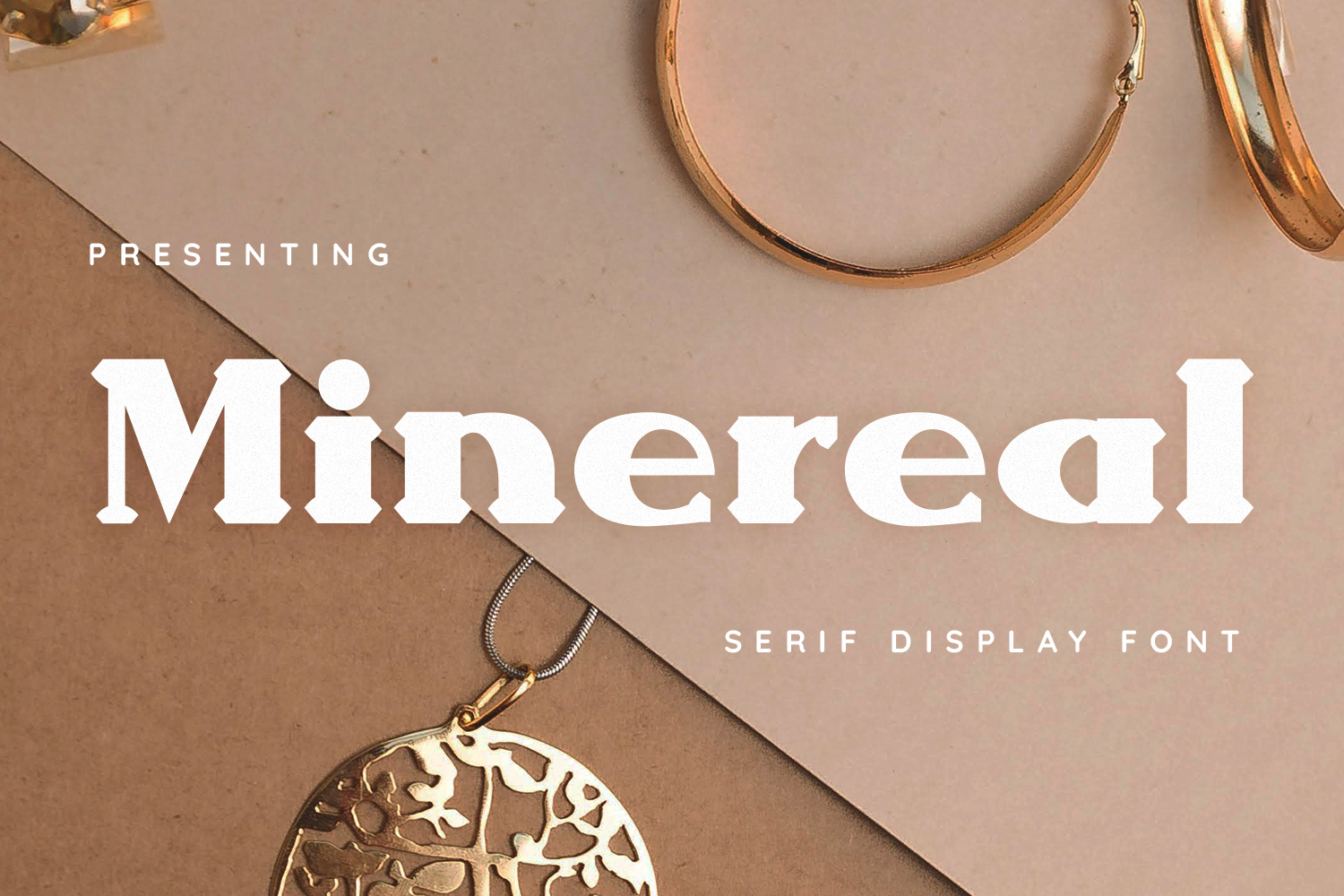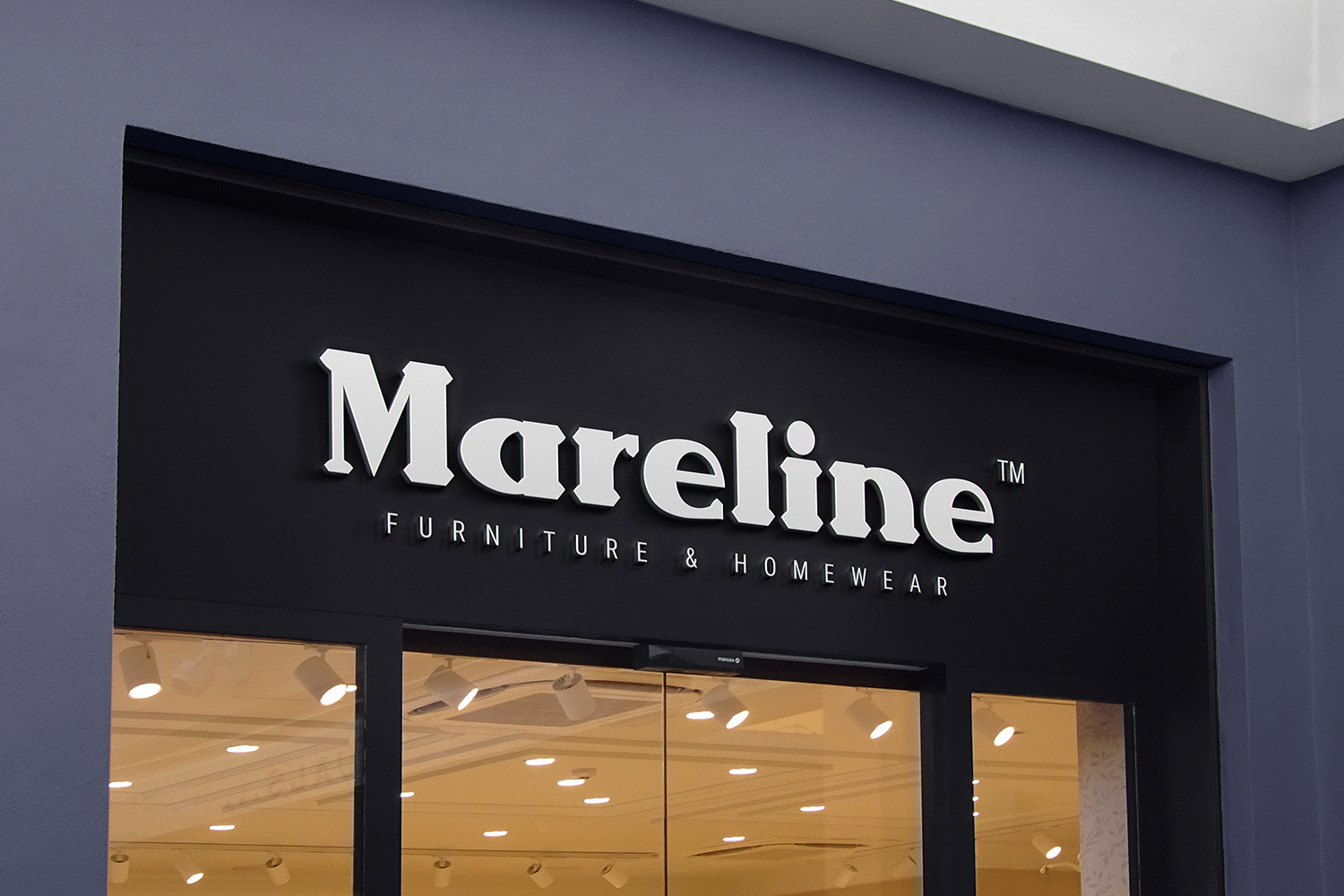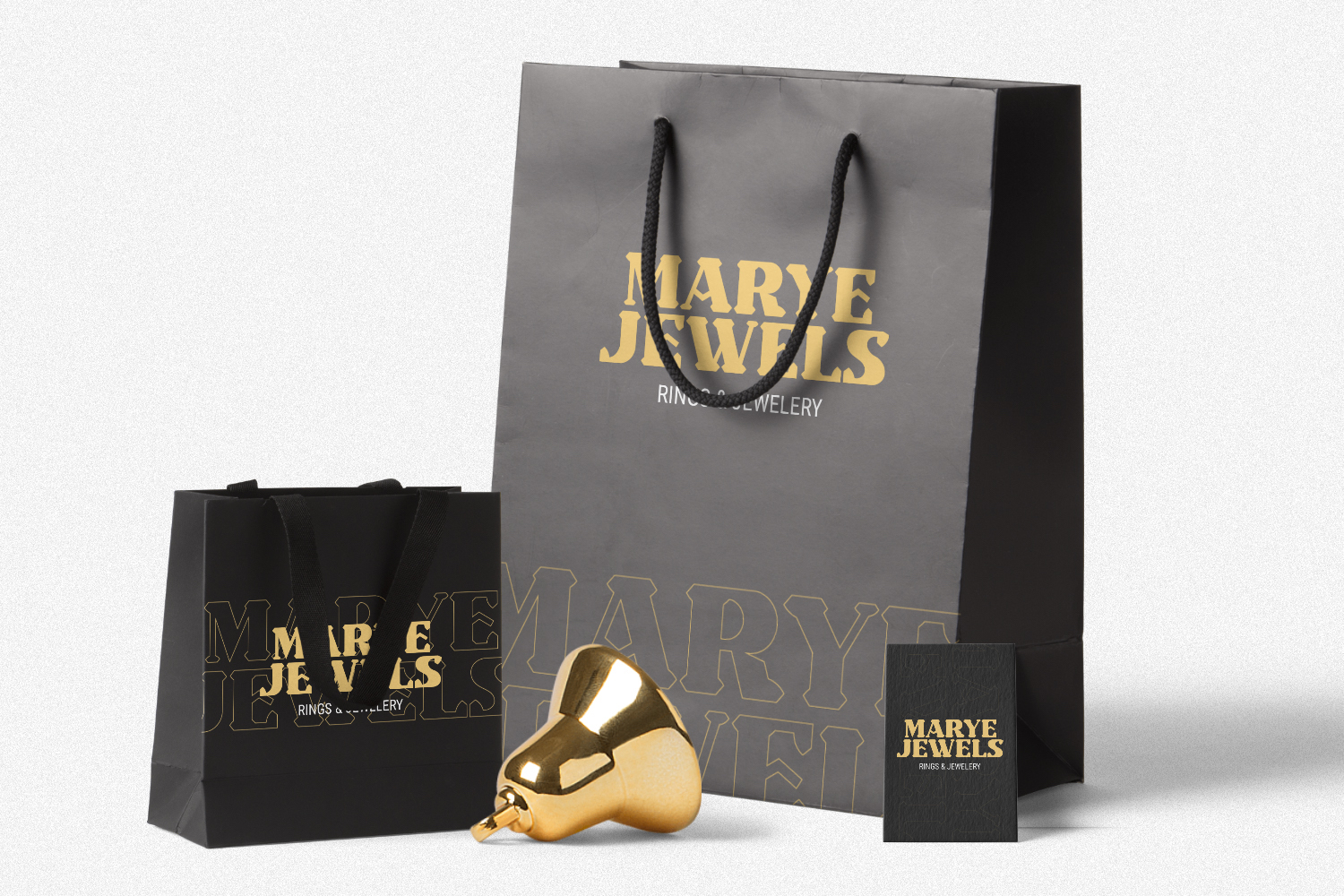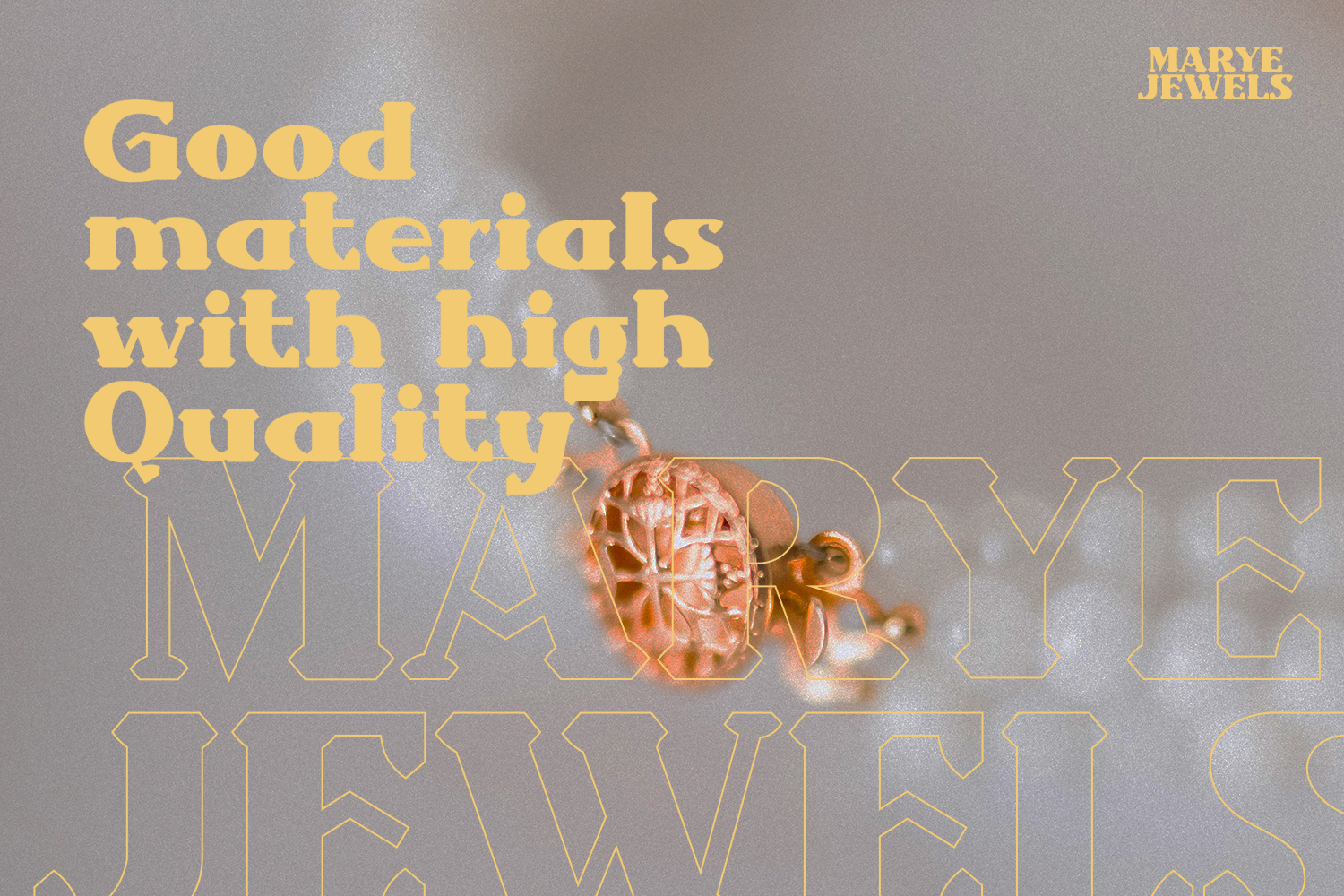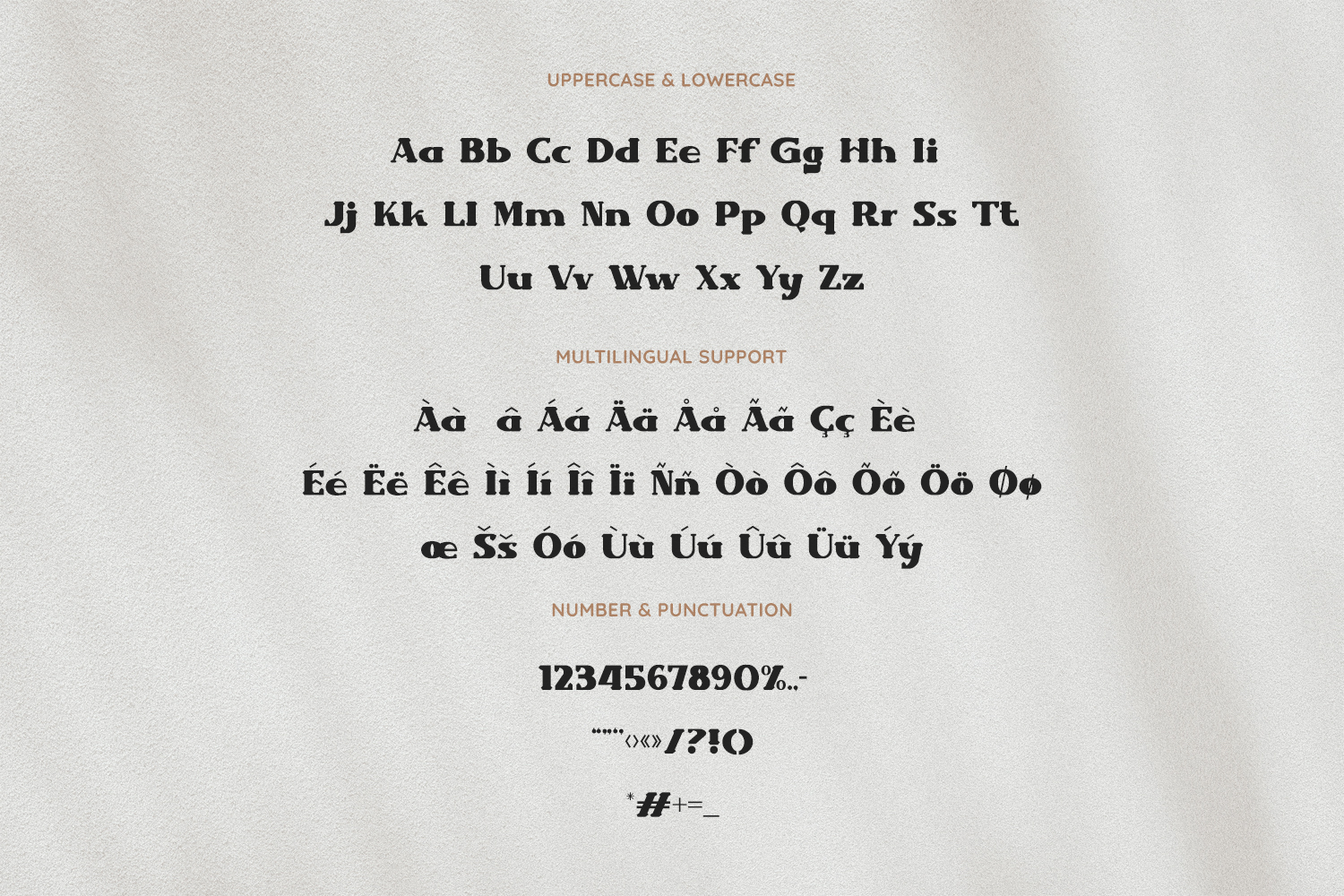
Minereal is a bold and refined serif display font that embodies strength and sophistication. Its sharp, geometric serifs paired with a modern structure create a timeless look, perfect for luxury branding, jewelry packaging, and high-end fashion logos. The font’s clean legibility and elegant silhouette make it ideal for editorial titles and striking headlines.
This versatile typeface supports multilingual characters, making it suitable for global markets. With its strong contrast and signature shapes, Minereal brings a premium and confident voice to any visual project. From storefront signage to marketing campaigns that demand presence and elegance.
Minereal